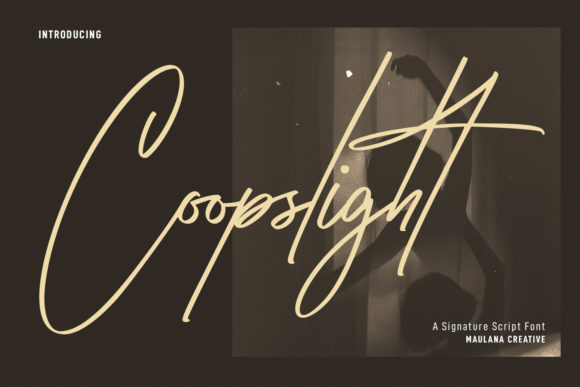
Journey into the delectable world of Coopslight, where culinary artistry meets typographic delight! This enchanting script font, hailing from the creative genius of Maulana Creative, is a feast for the eyes and a culinary connoisseur's dream.
With its tall and expressive stature, Coopslight dances across your designs like a master chef creating an exquisite dish. Its medium strokes, playful characters, and an arsenal of ligatures and alternates are the secret ingredients that bring your culinary creations to life.
Indulge in the gastronomic symphony of Coopslight, a font that elevates your food branding to tantalizing heights. Picture your menus adorned with Coopslight's irresistible charm, enticing your customers with every bite. Your packaging will come alive with the authentic flavors of Coopslight, transforming your products into delectable masterpieces.
Coopslight isn't just a font; it's an irresistible invitation to a culinary adventure. Its whimsical strokes capture the essence of culinary artistry, where every letter is a morsel of typographic delight. Experience the symphony of flavors as Coopslight awakens your taste buds with its delectable curves and tantalizing ligatures.
Dare to venture beyond the ordinary and embrace the culinary magic of Coopslight. Let your brand bask in the spotlight, radiating an aura of sophistication and culinary expertise. Trust in Coopslight, and you'll discover a font that's not just visually stunning but also a catalyst for your culinary success.